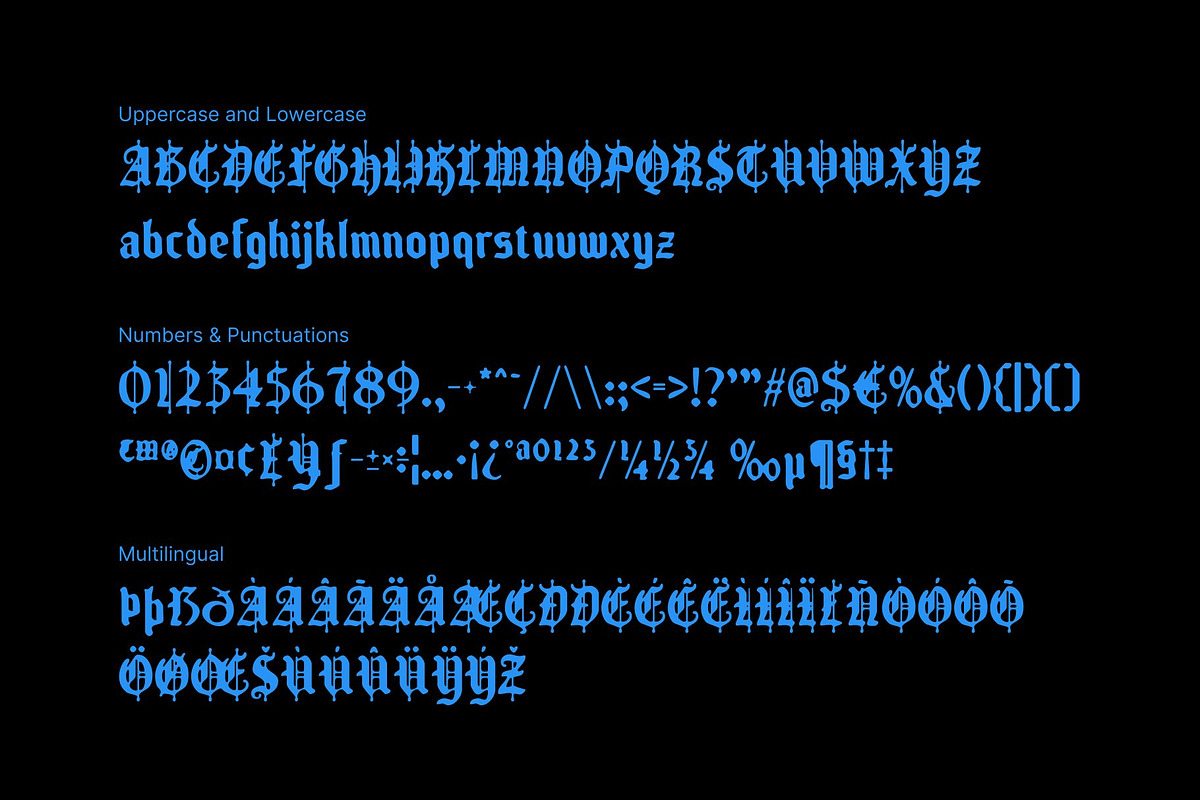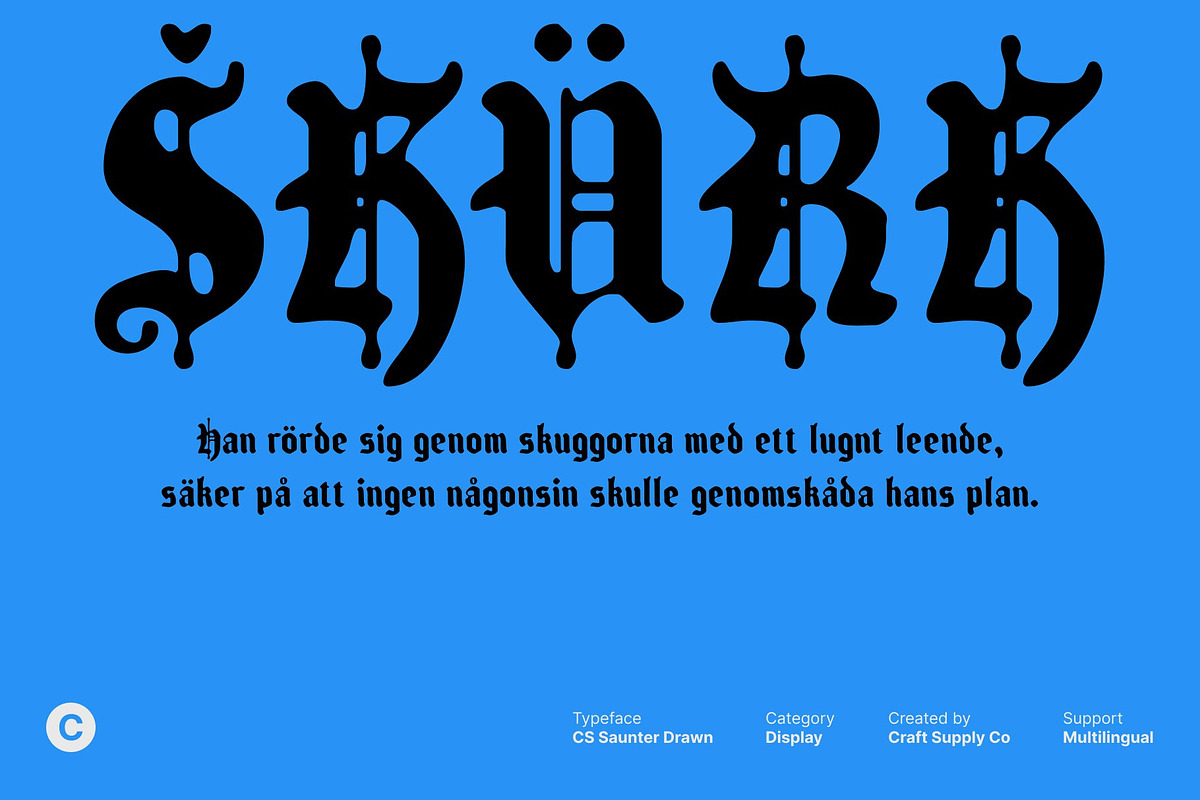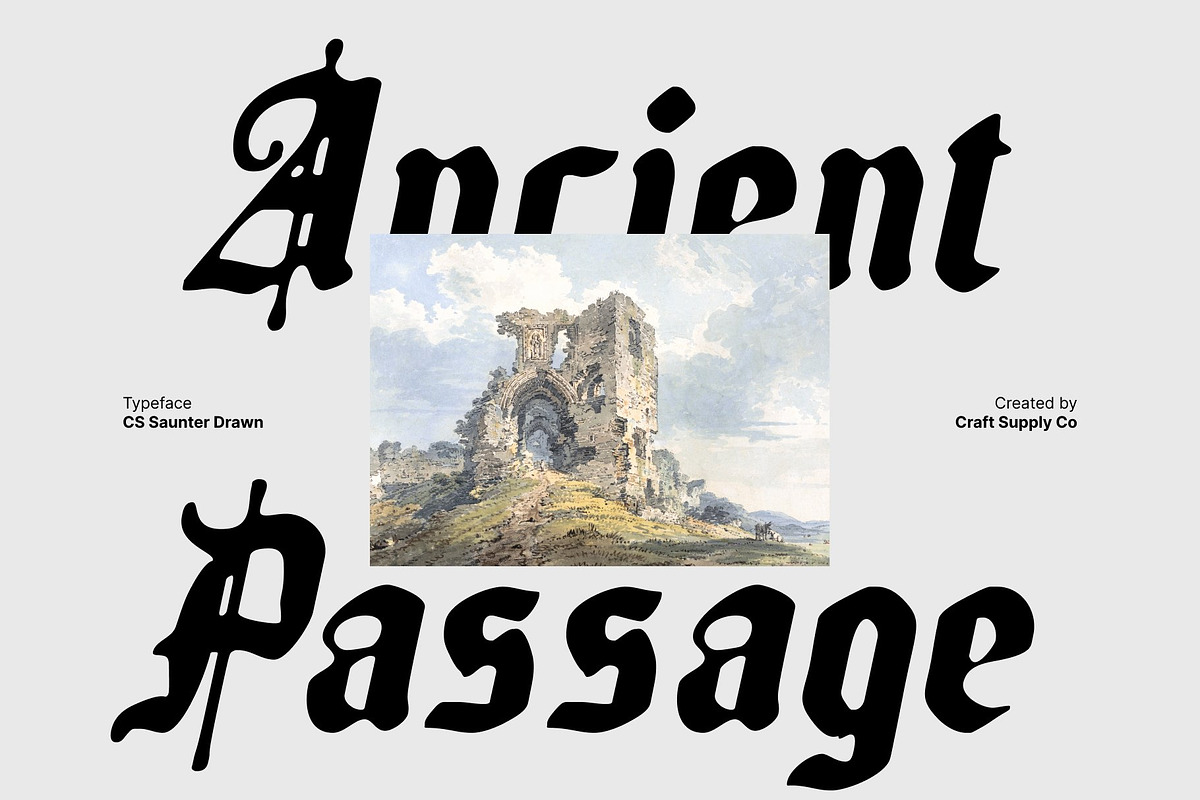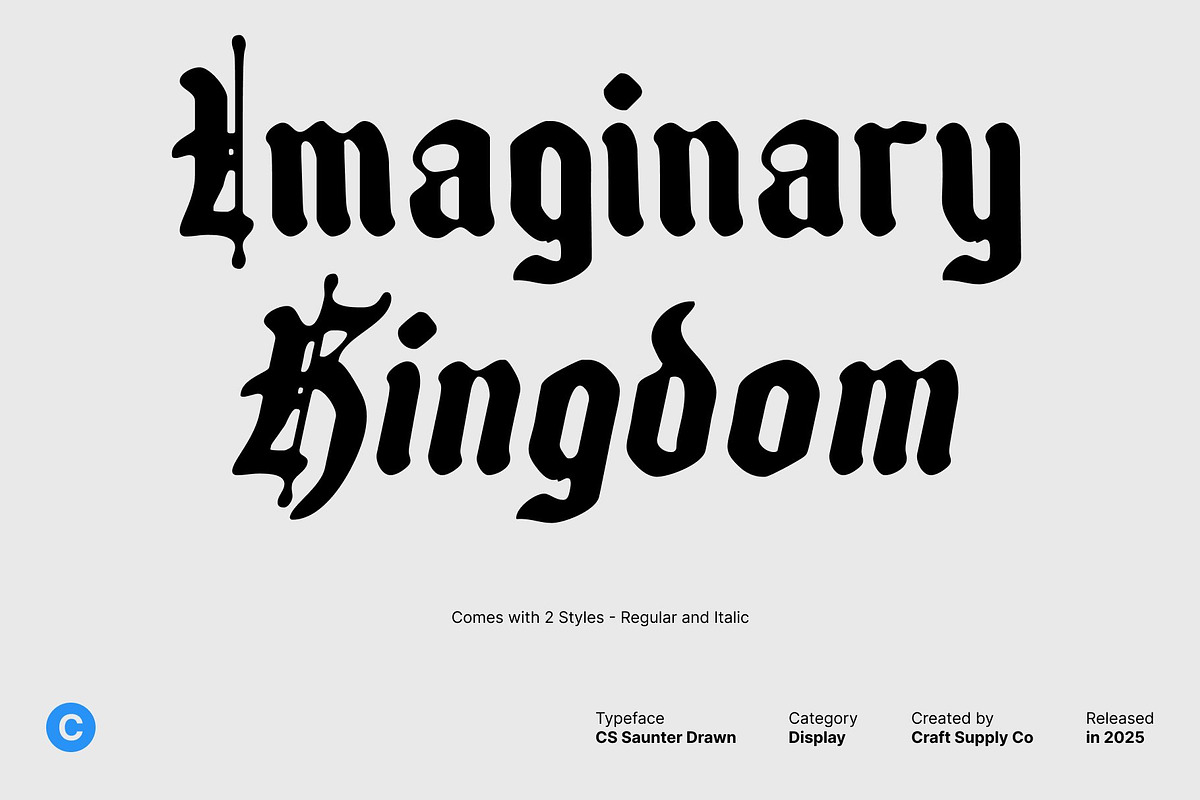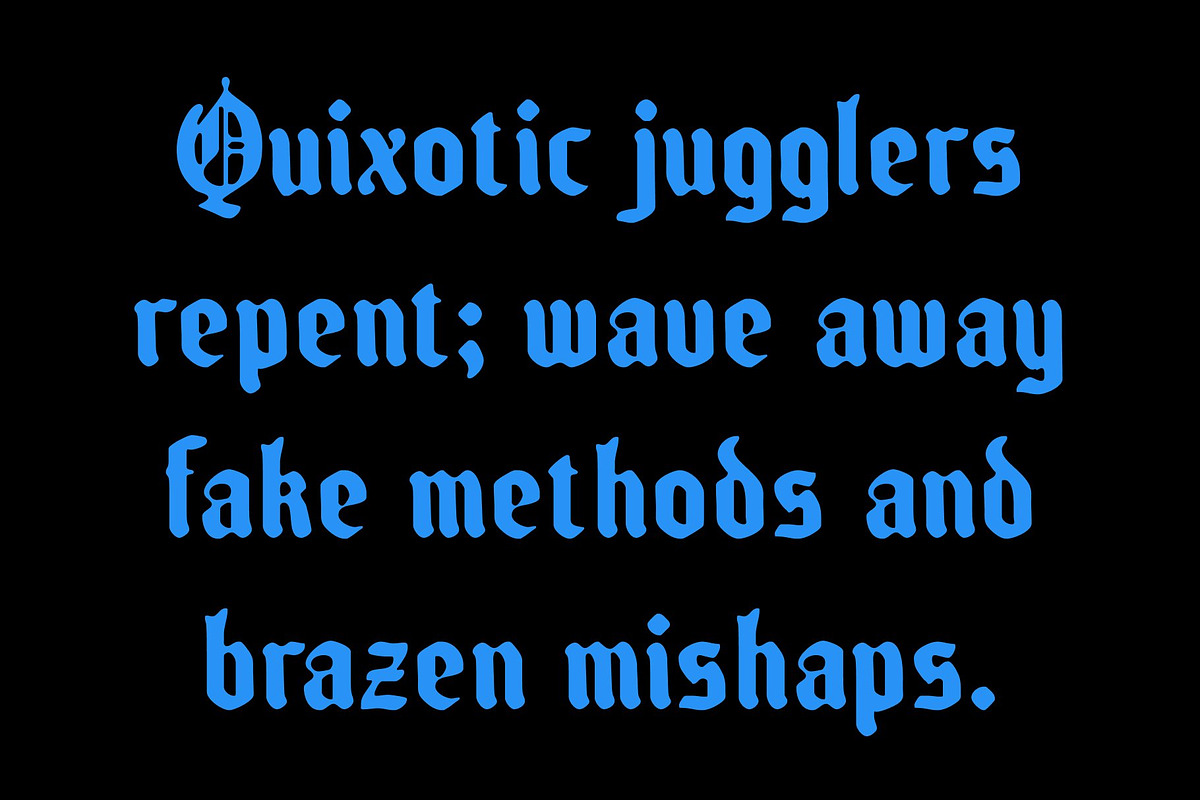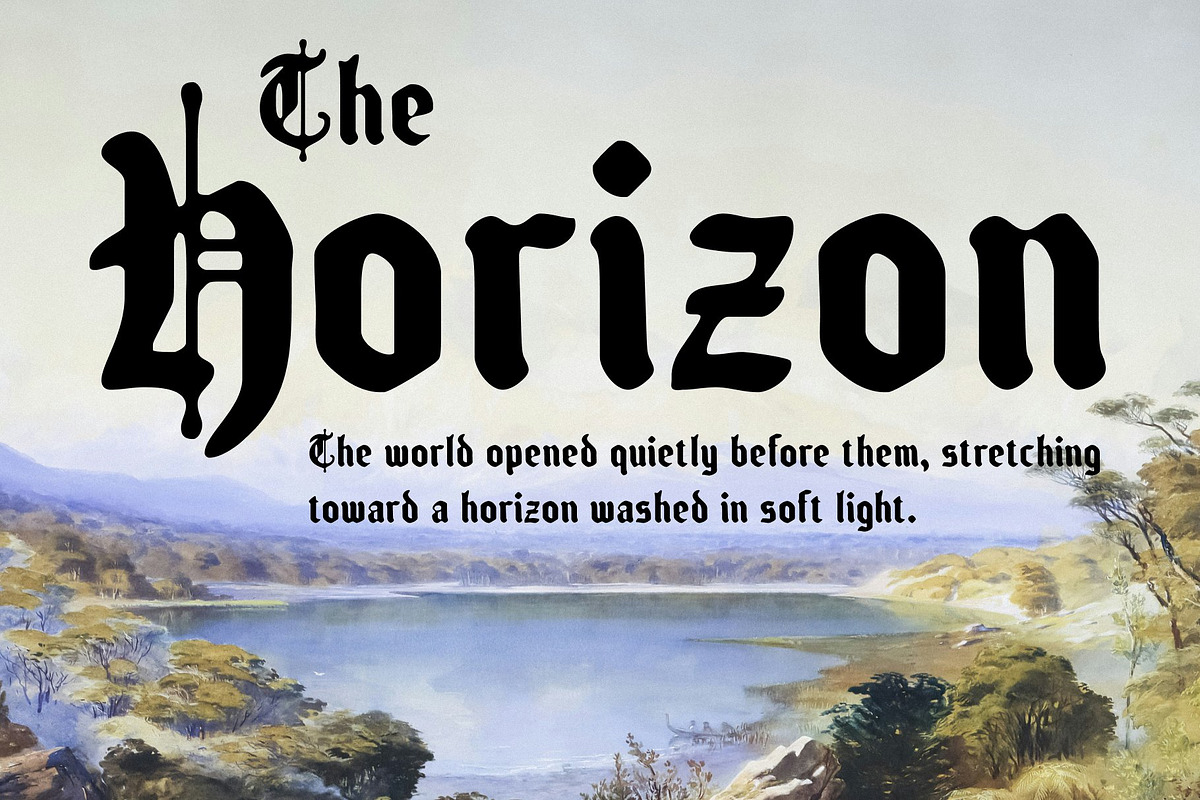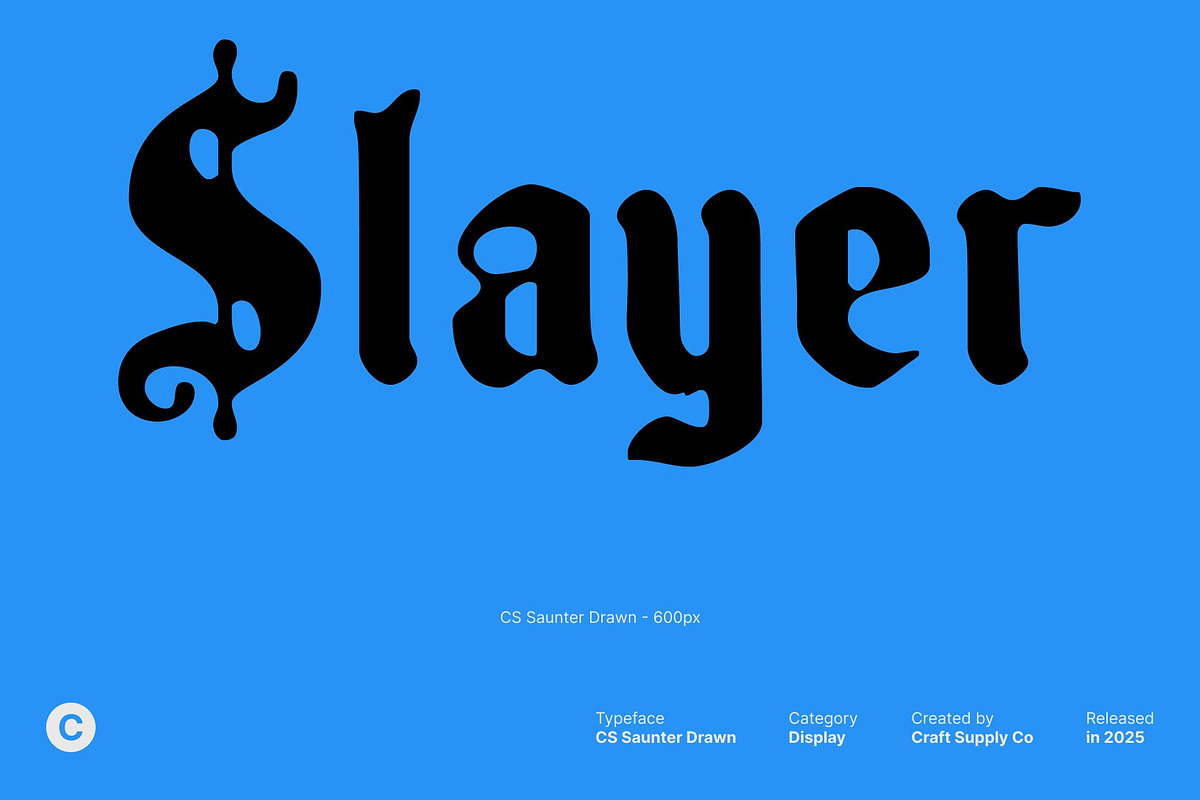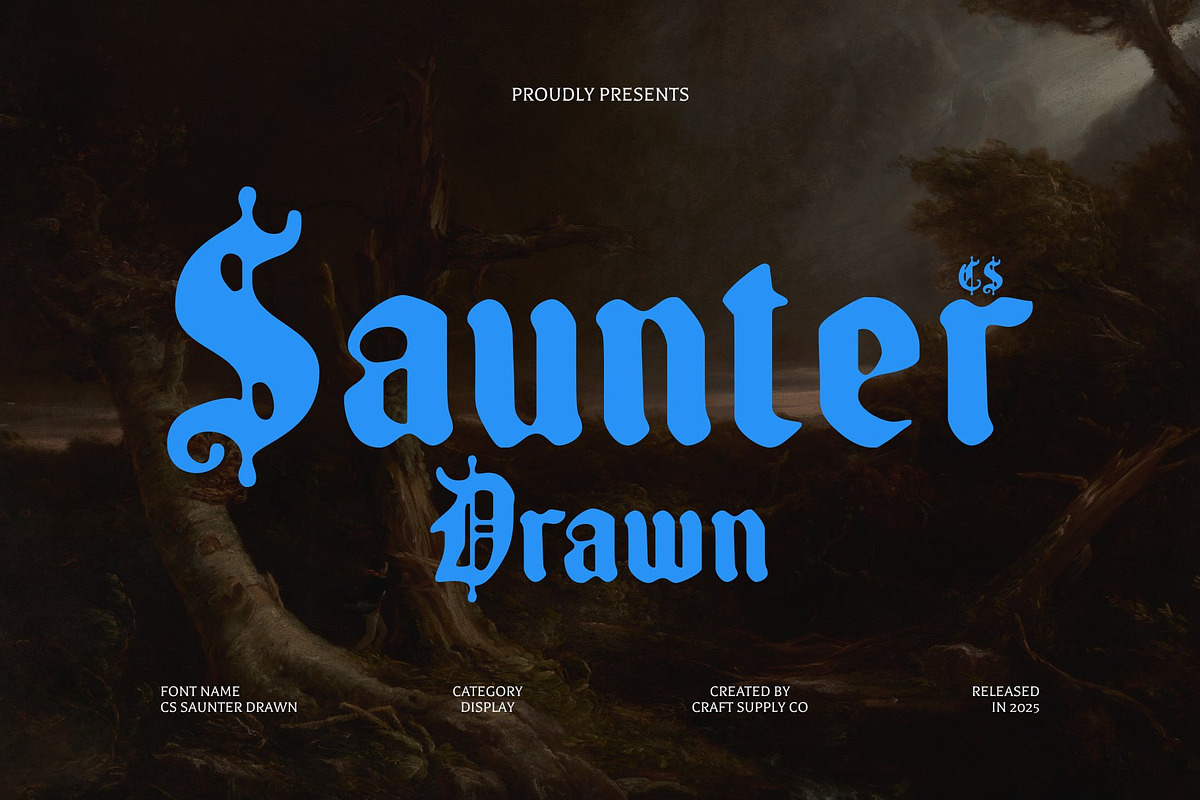
CS Saunter Drawn
CS Saunter Drawn – Decorative Blackletter Font with Artistic Mystery
Aesthetic Strokes Rooted in Classic Blackletter Tradition This is a decorative Blackletter display font that embraces classic gothic heritage while presenting it through refined, aesthetic strokes. Its sharp yet elegant letterforms carry an unmistakable sense of mystery and depth, evoking historical manuscripts, medieval calligraphy, and timeless craftsmanship.
Drawn Texture for Artistic and Handmade Character What truly defines this font is its drawn texture, which adds an expressive, handmade quality to the rigid Blackletter structure. Subtle imperfections and organic stroke variations soften the sharp edges, creating a balance between tradition and creativity.
Strong Visual Impact for Display-Oriented Designs Designed primarily for display use, excels in titles, headlines, and focal typography. Its decorative nature ensures high visual impact, making it ideal for book covers, posters, album artwork, editorial headlines, and branding projects that aim to stand out with confidence and character. The font commands attention while maintaining readability at larger sizes.
Perfect for Classic, Artistic, and Distinctive Branding This is an excellent choice for designers seeking a typeface that blends classic Blackletter aesthetics with modern artistic expression. Whether used for cultural branding, gothic-inspired visuals, or creative storytelling projects, this font delivers a distinctive look that feels timeless, expressive, and unforgettable.